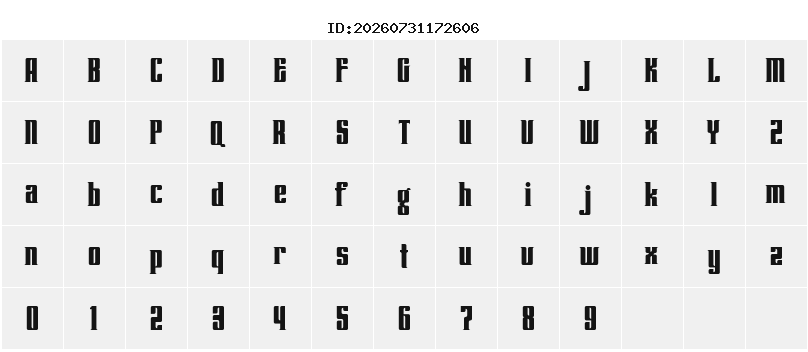
Lenteroos Preview
• Font Name: Lenteroos
• Designer: LeFly
About Lenteroos.ttf
Lenteroos.ttf is a modern, elegant sans-serif font designed for ultimate readability and visual harmony. Perfect for branding, headlines, web design, and print materials.